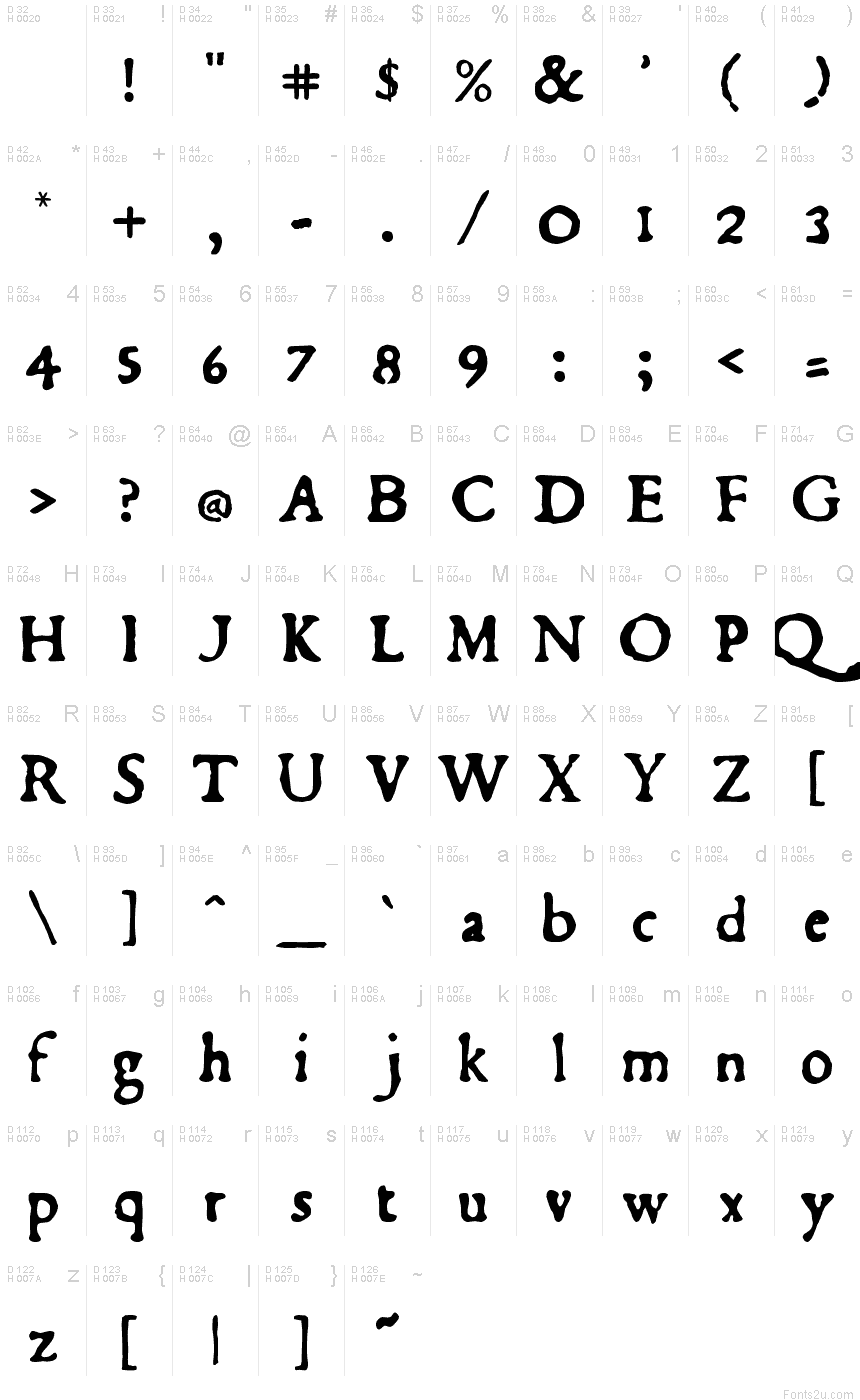
Du Bellay
Du Bellay font is a free eroded serif font that looks like it was pulled from a crumbling storybook or a weather-beaten tavern sign. Chunky letterforms, uneven edges, and inky blotches give it a hand-pressed, slightly spooky charm that feels both historic and mischievous. It reads like old ink on rough paper, with each word looking a little battered and alive.
Using Du Bellay, you can add instant atmosphere to fantasy book covers, pirate or medieval posters, Halloween invites, escape-room branding, game titles, and themed menus. This free font works best in larger headlines; pair it with a clean, modern sans-serif for body text to keep layouts readable while letting Du Bellay handle all the mood and drama.